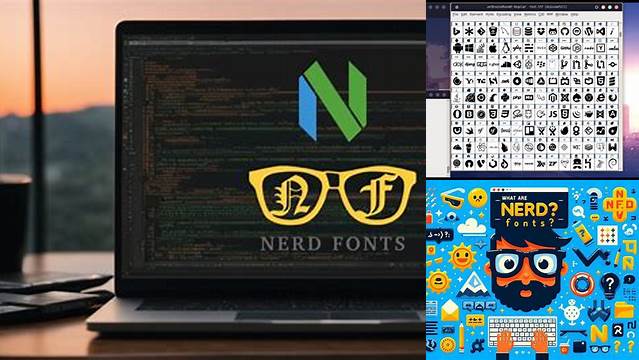
Nerd Fonts & Neovim: Setup Guide For Developers
Introduction to Nerd Fonts and Neovim
Hey guys! Today, we're diving deep into the world of Nerd Fonts and how they can supercharge your Neovim experience. If you're like me, you probably spend a significant amount of time in your code editor, and customizing it to fit your exact needs is crucial for both productivity and enjoyment. Nerd Fonts are a fantastic way to add a ton of cool icons and glyphs to your terminal, making your Neovim setup not only more functional but also visually appealing. We'll explore what Nerd Fonts are, why they're so popular, and how to get them set up with Neovim.
So, what exactly are Nerd Fonts? In the simplest terms, they are fonts that have been patched to include a massive set of icons. These icons come from various popular icon sets such as Font Awesome, Material Design Icons, Devicons, and many more. This means you can use these icons in your terminal and Neovim plugins to display file type icons, Git status indicators, and other useful information. Imagine seeing a cute little Python logo next to your .py files or a Git branch icon in your status line – that's the power of Nerd Fonts!
Why are Nerd Fonts so popular, you ask? Well, the primary reason is their versatility. They allow you to use icons in your terminal without relying on external graphical interfaces. This is especially useful for terminal-based applications like Neovim, where you want to keep everything within the terminal environment. Plus, who doesn't love a bit of visual flair? The icons make your editor look modern and well-organized, which can be a great motivation booster during those long coding sessions. Another key advantage is the consistency they bring. By using a Nerd Font, you ensure that the icons will display correctly across different terminals and operating systems, avoiding those annoying situations where your carefully crafted setup looks broken on another machine.
Setting up Nerd Fonts with Neovim might seem daunting at first, but trust me, it's a straightforward process. We'll walk through the steps together, from downloading and installing the fonts to configuring Neovim to use them. We'll also cover some common issues you might encounter and how to troubleshoot them. By the end of this guide, you'll have a beautifully customized Neovim environment that's both functional and aesthetically pleasing. Let's get started and make your Neovim setup truly awesome!
Now, let's talk about manual installation. This method works on all operating systems and gives you more control over which fonts you install. First, you'll need to head over to the official Nerd Fonts repository on GitHub. There, you'll find a dist folder containing all the individual font files. You can either download the entire repository or just the specific fonts you want. Once you've downloaded the fonts, you need to place them in the correct directory for your operating system. On macOS, this is usually ~/Library/Fonts. On Linux, it's typically ~/.local/share/fonts or /usr/share/fonts. If you're on Windows, you can simply double-click the font files and click the "Install" button. After placing the font files in the appropriate directory, you might need to refresh your font cache. On Linux, you can do this by running fc-cache -f -v in your terminal. This ensures that your system recognizes the newly installed fonts.
After installing the fonts, it's a good idea to verify that they're installed correctly. You can do this by opening your terminal and checking if the Nerd Fonts appear in the list of available fonts. For example, on macOS, you can open Font Book and look for the fonts. On Linux, you can use a font management tool or run fc-list | grep Nerd in your terminal. If you see the Nerd Fonts listed, congratulations! You've successfully installed them. If not, double-check that you've placed the font files in the correct directory and refreshed your font cache. With your Nerd Fonts installed, you're one step closer to a beautifully customized Neovim setup. In the next section, we'll dive into configuring Neovim to use these fonts.
Configuring Neovim to Use Nerd Fonts
Okay, now that you've got those awesome Nerd Fonts installed, it's time to make Neovim use them! This is where the magic really happens, and you'll start to see those cool icons popping up in your editor. Configuring Neovim to use Nerd Fonts involves a few simple steps, and I'm here to guide you through each one. We'll cover setting the font in your terminal, configuring Neovim's guifont, and troubleshooting any issues you might encounter. Let's get your Neovim looking sharp!